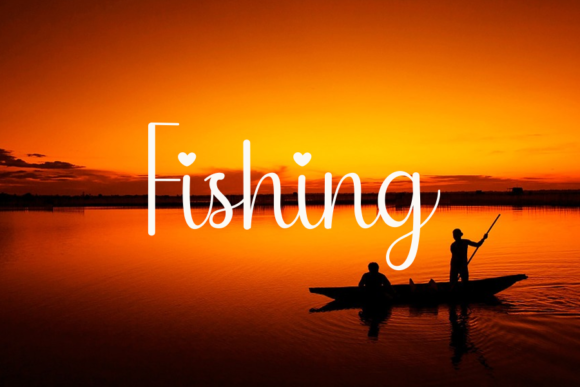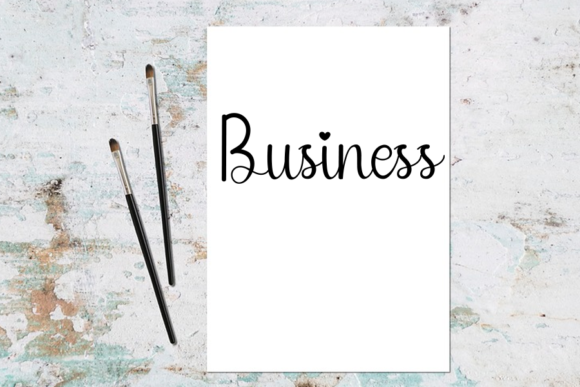
Strong Girl Font
db-ku.com - Script & Handwritten -- Strong Girl is a delicate and elegant handwritten font. Its distinct and well balanced letters make this font a masterpiece. Fall in love with its incredibly versatile style and use it to create spectacular designs!